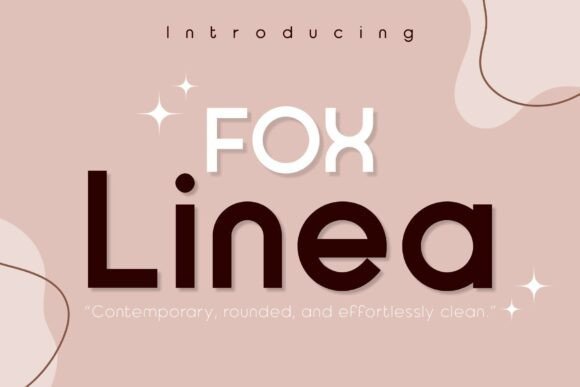
Discover the Perfect Balance of Minimalism and Softness with Fox Linea Font
Have you ever stared at a blank page, trying to find the perfect font to match your creative vision? You know, that moment when the words just won’t come together, and you need a little nudge to get your design flowing? For designers, this is a familiar feeling, and it’s exactly why Fox Linea Font was created.
Fox Linea Font is a modern sans serif typeface that effortlessly blends minimalism with soft, rounded curves, making it perfect for branding, digital products, social media, packaging, and modern editorial design. With three font weights – Bold, Regular, and Thin – Fox Linea adapts to a variety of creative needs, offering balance and clarity at every size.
Fox Linea Font Key Features
- Font Family: Fox Linea Font is a sans-serif font family designed to provide a modern and clean look. It includes multiple weights and styles to suit various design needs.
- Character Set: The font family includes a wide range of characters, including Latin, Cyrillic, and Greek alphabets, as well as punctuation and symbols.
- Size: The font family includes a range of weights, from Light to Extra Bold, allowing designers to choose the perfect weight for their project.
- Unique Characteristics: Fox Linea Font features a distinctive x-height and a subtle rounded edge, giving it a friendly and approachable feel.
Designer Review: Fox Linea Font
As a designer, I’ve had the chance to work with various fonts, and I’d like to share my thoughts on the Fox Linea Font.
- Unique and elegant design: Fox Linea Font has a distinct style that’s both modern and sophisticated.
- Good legibility: The font is clear and easy to read, making it suitable for body text and headings.
- Wide range of styles: Fox Linea Font comes in various weights, from light to bold, which makes it versatile for different design projects.
- Limited italics and bold options: While the font has multiple weights, the italic and bold options are somewhat limited.
- Not ideal for display text: Fox Linea Font works well for body text, but it may not be the best choice for large display headlines.
Overall, Fox Linea Font is a solid choice for designers looking for a clean and elegant font. While it has some limitations, its unique design and good legibility make it a great addition to any design project.
Tips for Getting the Most Out of Fox Linea Font
1. Use Fox Linea Font for titles and headings to add a touch of sophistication.
2. Experiment with different font sizes and styles to create visual interest.
3. Pair Fox Linea Font with other fonts to create a unique and stylish design.
Common Use Cases for Fox Linea Font
1. Branding and logos
2. Marketing materials (brochures, flyers, etc.)
3. Digital design (websites, social media, etc.)
Alternatives to Fox Linea Font
Fox Linea Font is a sans-serif font known for its modern and clean appearance. It is commonly used in digital designs such as websites, mobile apps, and graphic designs. However, if you’re looking for alternatives, here are a few options to consider.
Open Sans is a popular sans-serif font designed by Steve Matteson. It is highly legible and suitable for digital designs. Open Sans is more versatile than Fox Linea Font, with a wider range of weights and styles available. Use Open Sans for body text in digital designs where you need a clean and modern look.
Lato is a sans-serif font designed by Łukasz Dziedzic. It is a great alternative to Fox Linea Font, with a similar modern and clean appearance. Lato is more condensed than Fox Linea Font, making it suitable for headings and titles. Use Lato for headings and titles in digital designs where you need a modern and elegant look.
Montserrat is a sans-serif font designed by Julieta Ulanovsky. It is a great alternative to Fox Linea Font, with a similar urban and modern feel. Montserrat is more geometric than Fox Linea Font, making it suitable for designs that require a strong and modern look. Use Montserrat for headings and titles in digital designs where you need a strong and modern look.